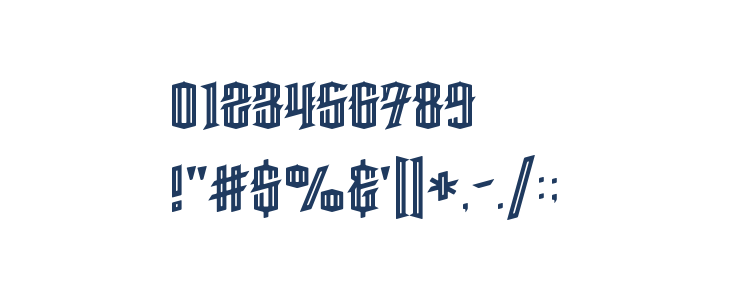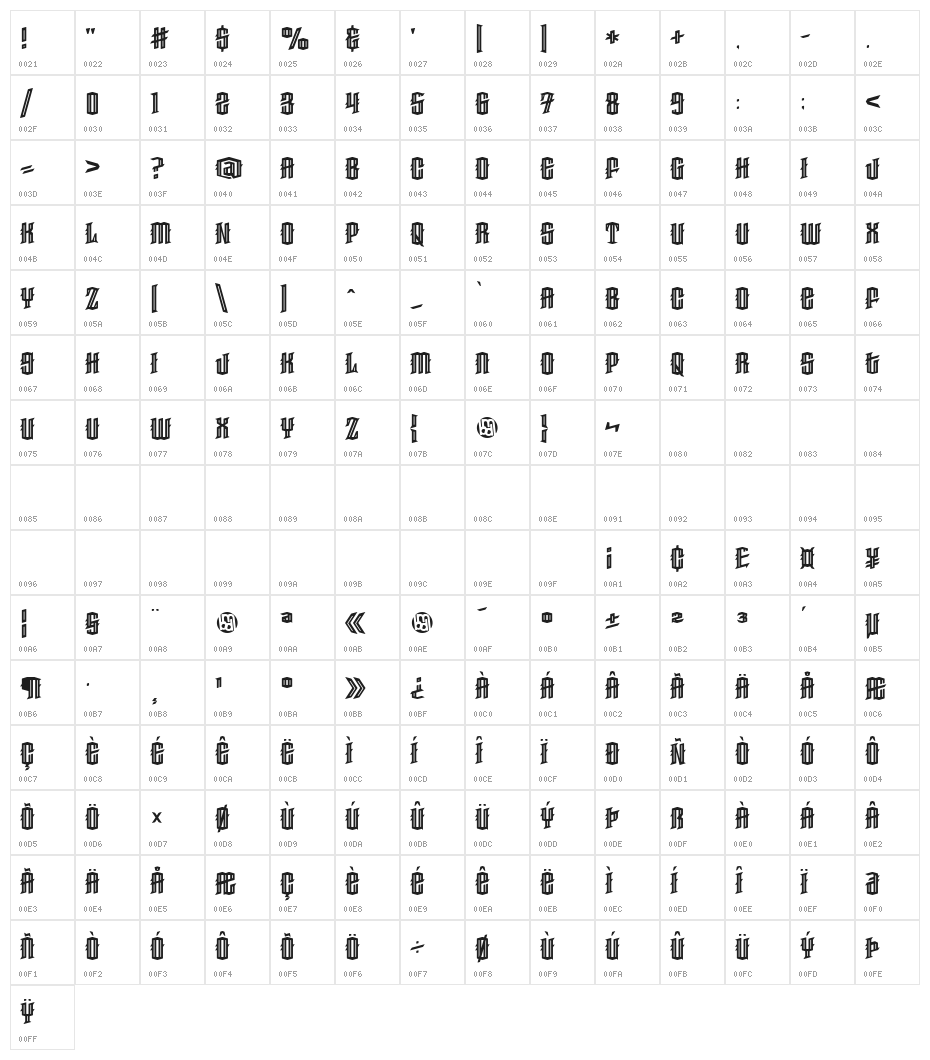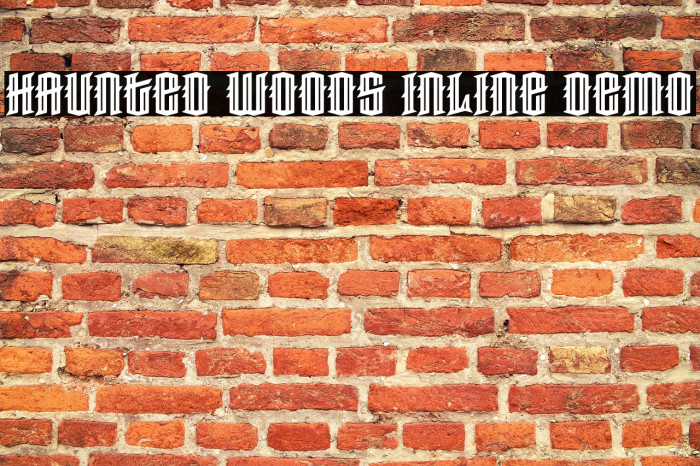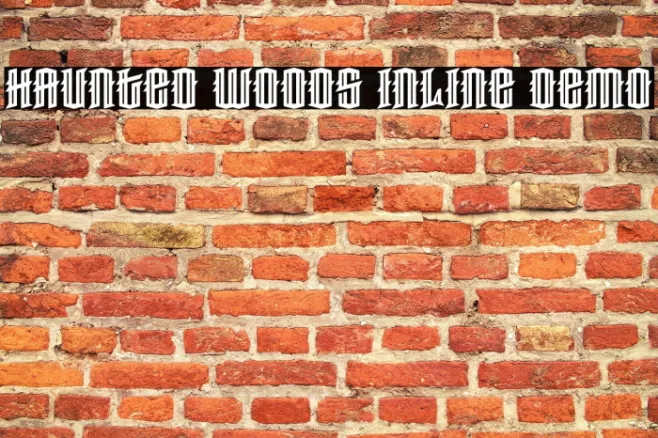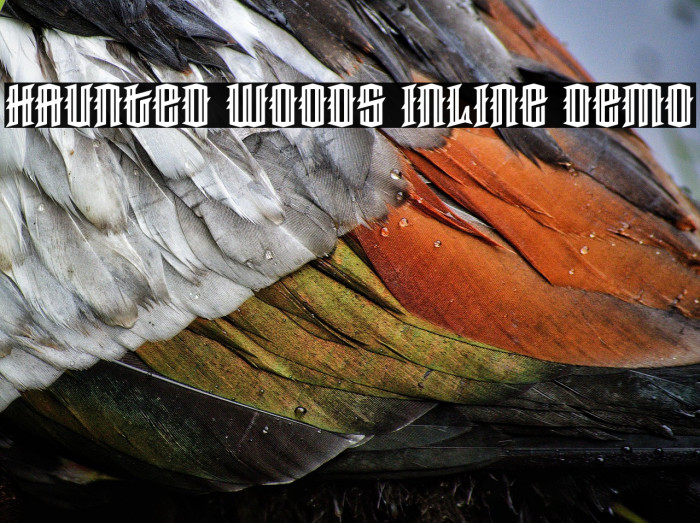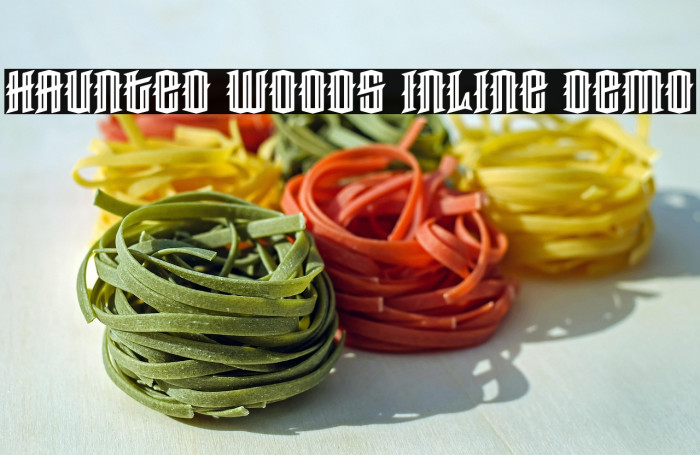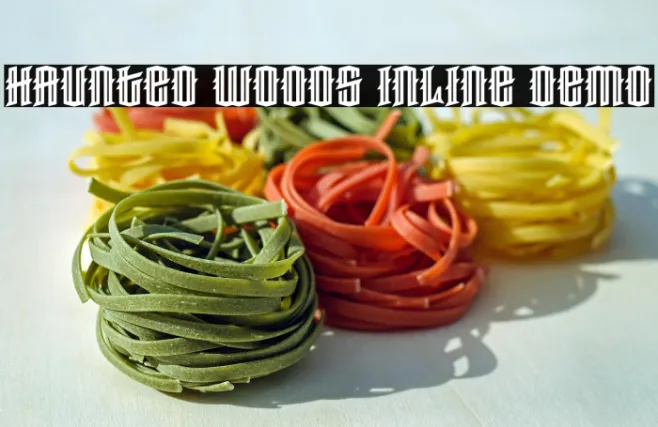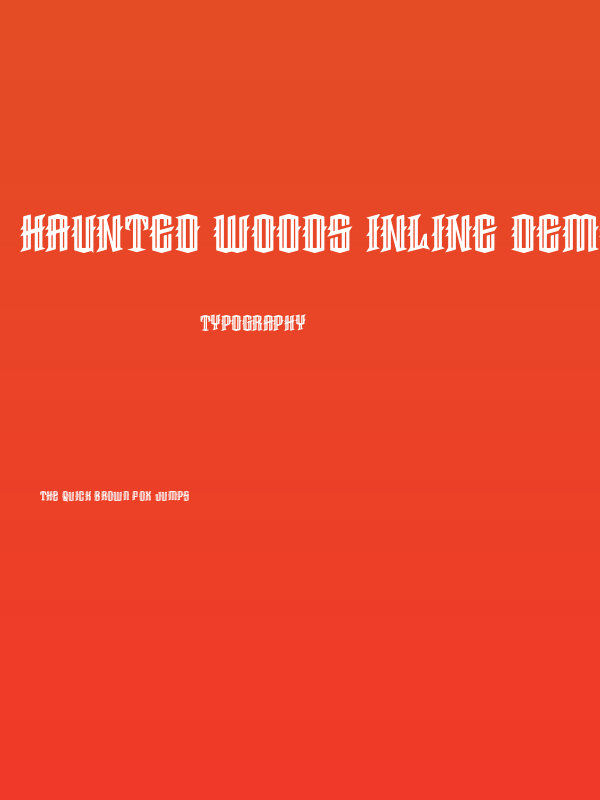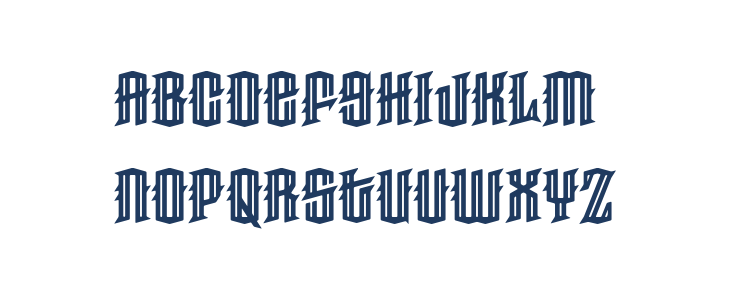
Haunted Woods Inline Demo Font
Haunted Woods Inline Demo Description
This font features a bold, gothic-inspired design with sharp, angular lines and a distinct inline style that adds depth and dimension. The uppercase and lowercase letters maintain a consistent height, creating a uniform appearance. The numbers and special characters are designed with the same intricate detailing, making them stand out. The overall aesthetic is reminiscent of medieval or horror themes, making it ideal for projects that require a dramatic and eye-catching typeface. The spacing between characters is tight, enhancing the compact and cohesive look.
| Proposed Projects | Ideal for horror-themed posters, Halloween invitations, video game titles, and branding for gothic or alternative products. |